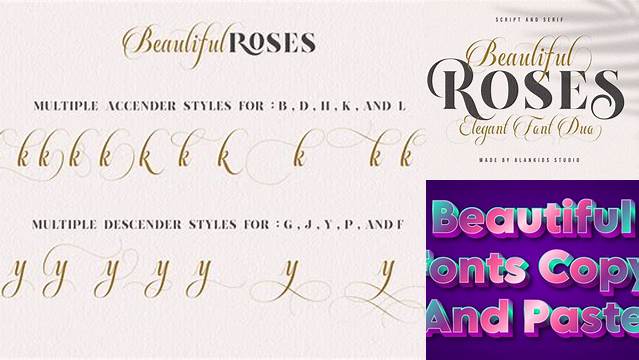
Rose Fonts: Copy, Paste & Add Floral Elegance!
Hey everyone! Want to add a touch of elegance and romance to your online presence? You've come to the right place! This guide is all about beautiful rose fonts, how to copy and paste them, and where to use them to make your content shine. We'll explore a variety of rose-themed fonts, their unique characteristics, and how to implement them across different platforms. So, let's dive in and sprinkle some floral magic!
1. Understanding Rose-Themed Fonts
Okay, so what exactly are rose-themed fonts? Generally, they're fonts that evoke the delicate and romantic aesthetic of roses. This might be achieved through floral-inspired flourishes, elegant curves, or a generally soft and graceful appearance. Beautiful rose fonts don't always literally depict roses, but they capture the essence of their beauty. Think flowing scripts, fonts with subtle ornamentation resembling petals, or even fonts with thorny, vintage vibes. When choosing a rose font, consider the overall tone you're aiming for. Are you going for classic romance, a touch of whimsy, or something more edgy and unconventional? Understanding the nuances of different rose-themed fonts will help you select the perfect one for your project. The goal is to enhance your message with an appropriate font that is also easy to read. Experiment with different styles and sizes. Don’t be afraid to mix and match with other fonts to create unique and appealing designs. You should try to choose a font that will stand out. Consider the legibility and how it will appear on different devices. This is to ensure that everyone can appreciate the beauty of your creation.
2. Finding the Perfect Rose Font Online
4. Using Rose Fonts in Social Media Posts
Elevate your social media game with beautiful rose fonts! Imagine your Instagram captions, Twitter bios, or Facebook posts adorned with elegant floral lettering. It's a fantastic way to capture attention and convey a sense of sophistication and style. However, using rose fonts on social media requires a slightly different approach than traditional copy-pasting. Since most social media platforms don't allow you to directly upload custom fonts, you'll need to rely on font generators or image-based solutions. Font generators allow you to create text in your desired rose font and then copy it as a Unicode character. This can be pasted directly into your social media posts, although the availability of specific rose-themed characters may vary depending on the platform. Alternatively, you can create images of your text in the rose font and upload them as part of your social media posts. This gives you greater control over the font's appearance and style, but it's important to optimize the image size and resolution to ensure it looks crisp and clear on different devices. Experiment with different rose fonts and see how they complement your brand's aesthetic and message. A touch of floral elegance can go a long way in making your social media posts stand out from the crowd.
5. Incorporating Rose Fonts in Website Design
Beautiful rose fonts can add a touch of romance and sophistication to your website design. Use them for headings, logos, or special callouts to create a visually appealing and memorable experience for your visitors. When incorporating rose fonts into your website, it's essential to consider factors like readability, loading speed, and cross-browser compatibility. Choose fonts that are easy to read on different screen sizes and resolutions, and optimize their file sizes to minimize page load times. You can either embed the rose fonts directly into your website's code using CSS or use image-based solutions for headings and logos. Embedding fonts gives you greater control over their appearance and allows you to ensure consistency across your website. However, it's crucial to choose web-safe fonts that are supported by most browsers. Alternatively, you can create images of your text in the rose font and upload them as part of your website's design. This gives you more flexibility in terms of font selection, but it's important to optimize the images for web use to avoid slowing down your website's loading speed. Experiment with different rose fonts and see how they complement your website's overall design and branding. A well-chosen rose font can add a touch of elegance and sophistication to your online presence.
6. Rose Fonts for Invitations and Cards
For a touch of elegance, use beautiful rose fonts for invitations and cards! They're perfect for wedding invites, birthday cards, or even just a sweet note to a friend. The delicate and romantic nature of rose-themed fonts makes them ideal for conveying heartfelt emotions and creating a sense of sophistication. When designing invitations and cards with rose fonts, consider the overall theme and style of your event or message. Choose fonts that complement the color scheme, imagery, and tone of your design. For formal occasions like weddings, elegant script fonts with floral embellishments can add a touch of grandeur and romance. For more casual events like birthday parties, playful and whimsical rose fonts can inject a sense of fun and excitement. Experiment with different font combinations and layouts to create a visually appealing and balanced design. Pay attention to the font size, spacing, and kerning to ensure that the text is easy to read and visually harmonious. You can either use digital design tools to create your invitations and cards or hand-letter them using calligraphy pens and rose-themed stencils. The key is to let your creativity flow and create designs that reflect your personal style and the spirit of your event.
7. Creating Logos with Rose Fonts
Using beautiful rose fonts in logos is a fantastic way to create a brand identity that exudes elegance, romance, and sophistication. Rose fonts can help you convey a sense of luxury, beauty, and femininity, making them perfect for businesses in the fashion, beauty, floral, or wedding industries. When designing logos with rose fonts, it's important to choose fonts that are both visually appealing and easy to read. Opt for fonts that have a clear and distinct character, and avoid overly ornate or complex fonts that may be difficult to decipher at smaller sizes. Consider the overall aesthetic of your brand and choose fonts that align with your brand's personality and values. For example, a high-end fashion brand might opt for an elegant script font with delicate floral embellishments, while a bohemian floral shop might choose a more whimsical and hand-drawn rose font. Experiment with different font combinations, colors, and layouts to create a logo that is both visually striking and memorable. Pay attention to the font size, spacing, and kerning to ensure that the logo is legible and visually balanced. You can either use digital design tools to create your logo or hire a professional graphic designer to help you bring your vision to life. The key is to create a logo that accurately represents your brand and resonates with your target audience.
30. Vintage Rose Fonts: Evoking Nostalgia and Charm
Evoke nostalgia and charm with vintage beautiful rose fonts! These fonts transport you back in time with their classic letterforms, intricate details, and subtle imperfections. Vintage rose fonts often feature distressed textures, faded colors, and antique-inspired embellishments, creating a sense of history and authenticity. Look for fonts that are inspired by vintage advertising, signage, and ephemera. These fonts often have a unique character and personality, making them perfect for adding a touch of nostalgia to your designs. Vintage rose fonts are ideal for branding projects, packaging designs, and posters where you want to create a sense of timelessness and authenticity. Pair them with vintage-inspired illustrations and graphics to complete the look. With vintage rose fonts, you can add a touch of old-world charm to your designs and create a lasting impression on your audience.